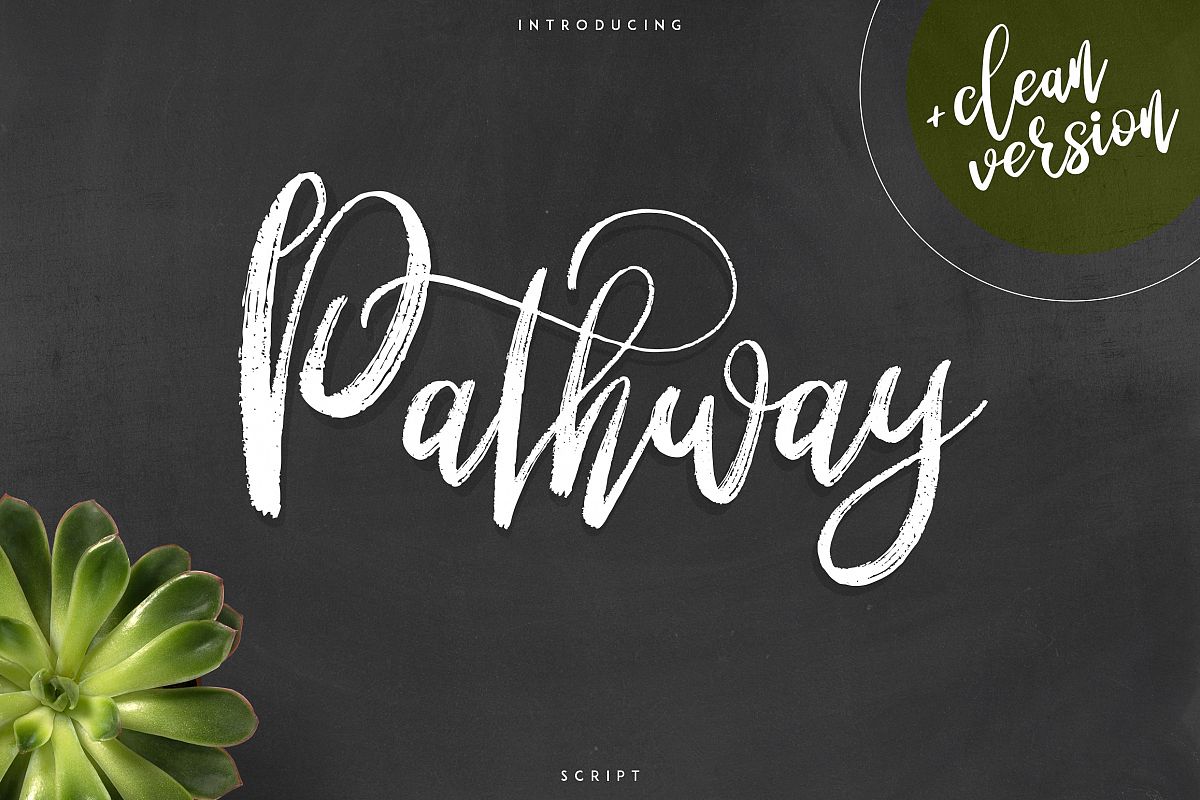
Pathway script - 2 styles
Pathway-Clean
Pathway-Regular
Introducing Pathway script
Pathway is hand-drawn, fun typeface with 2 styles and multilingual support.
It's a very versatile font that works great in large and small sizes.
Pathway is perfect for branding projects, home-ware designs, product packaging, magazine headers - or simply as a stylish text overlay to any background image.
• Uppercase,lowercase,numeral,punctuation & Symbol
• Multilingual
• Rough
• Clean
• Ligatures - mm, th, tt, bb, ee, kk, ll, nn, oo, rr, ss, ff